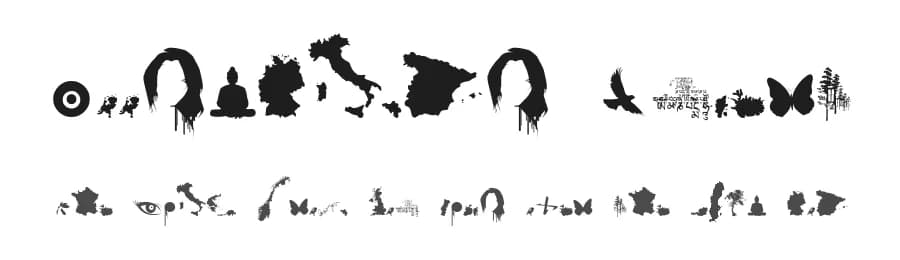
About Loosydings Expert Font
Loosydings Expert is a dingbat font designed by loosydesign. It includes 92 glyphs, a regular weight, TTF (TrueType) format, and 104 languages. Loosydings Expert is free to download; check the license details on this page before commercial use. Dingbat fonts like Loosydings Expert work best for icons, ornaments, bullet points, and decorative accents.
Loosydings Expert Font is a versatile dingbats font that works for both headings and body text. Pair it with a contrasting sans-serif or serif font to add visual interest and a clear distinction between titles and body copy.
Loosydings Expert Font